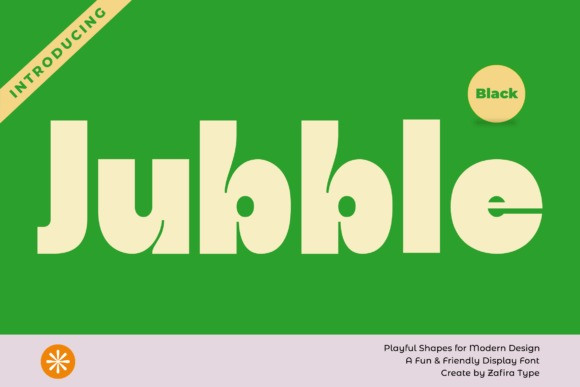
Jubble Font
Jubble Font is a fun and friendly Geometric Display Font defined by its playful, chunky shapes and distinct, almost rubbery curves.
It leans into a contemporary, stylized aesthetic with a touch of retro charm. The letterforms feature sharp cuts in otherwise rounded bowls, creating an interesting contrast that makes the font highly memorable and unique.
Perfect for branding, product packaging, posters, and web design that needs a bold, optimistic, and welcoming visual voice. Its Black weight ensures maximum visibility, making it great for titles in modern children’s media, food packaging, and youthful, progressive brands.